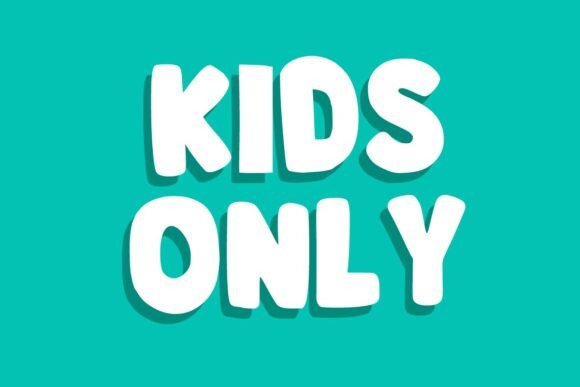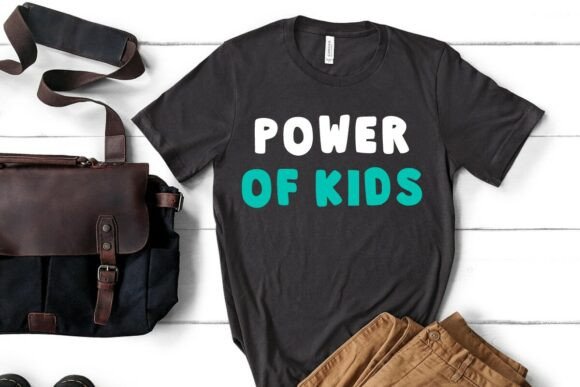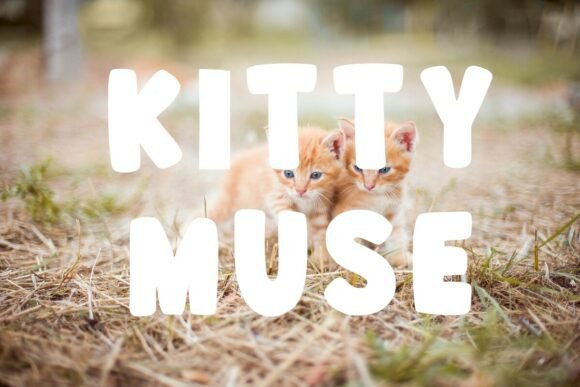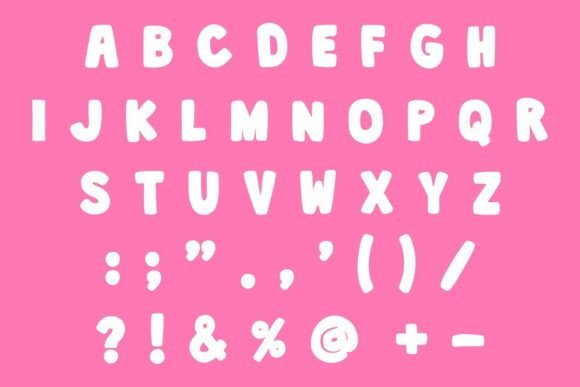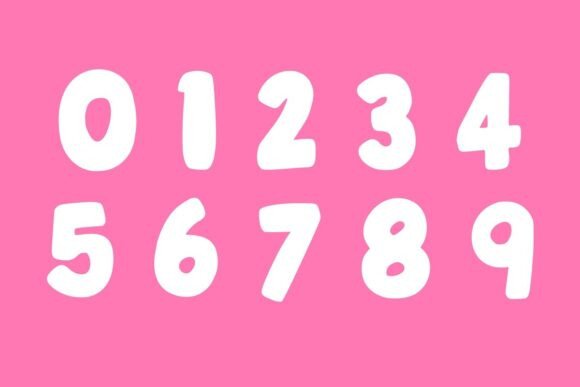
Bondy Space Font: The Ultimate Display Font for Fun and Playful Designs
Are you looking for a font that can add a touch of fun and playfulness to your designs? Look no further than the Bondy Space Font! This bubbly, bold display font is bursting with cuteness and cartoonish charm, making it perfect for a wide range of design projects.
What is Bondy Space Font?
Bondy Space Font is a unique and eye-catching font that is designed to deliver a fun and friendly tone in every glyph. Its chunky letterforms and playful curves make it stand out from other fonts, and its versatility makes it suitable for a variety of design applications.
Characteristics of Bondy Space Font
The Bondy Space Font has several characteristics that make it a great choice for designers and crafters. Some of its key features include:
- Chunky letterforms: The font features thick, chunky letterforms that are perfect for headlines and logos that need maximum personality.
- Playful curves: The font’s playful curves add a touch of whimsy and fun to any design.
- Bubbly and bold: The font is bold and eye-catching, making it perfect for designs that need to stand out.
- Cartoonish charm: The font has a cartoonish charm that makes it perfect for kids’ books, YouTube thumbnails, and other designs that require a playful touch.
Uses for Bondy Space Font
The Bondy Space Font is a versatile font that can be used for a wide range of design projects, including:
- Kids’ books: The font’s playful and cartoonish charm makes it perfect for kids’ books, children’s magazines, and other publications that require a fun and engaging design.
- YouTube thumbnails: The font’s bold and eye-catching design makes it perfect for YouTube thumbnails, social media graphics, and other digital designs that need to stand out.
- Toy packaging: The font’s playful and fun design makes it perfect for toy packaging, children’s product labels, and other designs that require a playful touch.
- Playful branding: The font’s bold and eye-catching design makes it perfect for playful branding, logos, and other designs that require a fun and friendly tone.
- Crafts and DIY projects: The font’s whimsical and playful design makes it perfect for crafts and DIY projects, such as handmade cards, gift tags, and other paper crafts.
- Book covers: The font’s bold and eye-catching design makes it perfect for book covers, magazine covers, and other publications that require a striking design.
- Digital designs: The font’s versatile design makes it perfect for digital designs, such as presentations, social media graphics, and other digital projects that require a fun and playful touch.
- Greeting cards: The font’s playful and whimsical design makes it perfect for greeting cards, invitations, and other paper crafts that require a fun and friendly tone.
Why Choose Bondy Space Font?
There are many reasons why designers and crafters should choose the Bondy Space Font for their design projects. Some of the benefits of using this font include:
- Unique and eye-catching design: The font’s bold and playful design makes it stand out from other fonts, and its chunky letterforms and playful curves add a touch of whimsy and fun to any design.
- Versatility: The font is versatile and can be used for a wide range of design projects, from kids’ books to digital designs.
- Easy to read: Despite its bold and playful design, the font is easy to read, making it perfect for designs that require a fun and friendly tone.
- Fun and friendly tone: The font delivers a fun and friendly tone in every glyph, making it perfect for designs that require a playful touch.
In conclusion, the Bondy Space Font is a unique and eye-catching font that is perfect for designers and crafters who want to add a touch of fun and playfulness to their designs. Its chunky letterforms, playful curves, and bold design make it stand out from other fonts, and its versatility makes it suitable for a wide range of design applications. Whether you’re designing a kids’ book, a YouTube thumbnail, or a playful brand logo, the Bondy Space Font is a great choice. So why not give it a try and see how it can bring joy, imagination, and an outer-space level of energy to your designs?